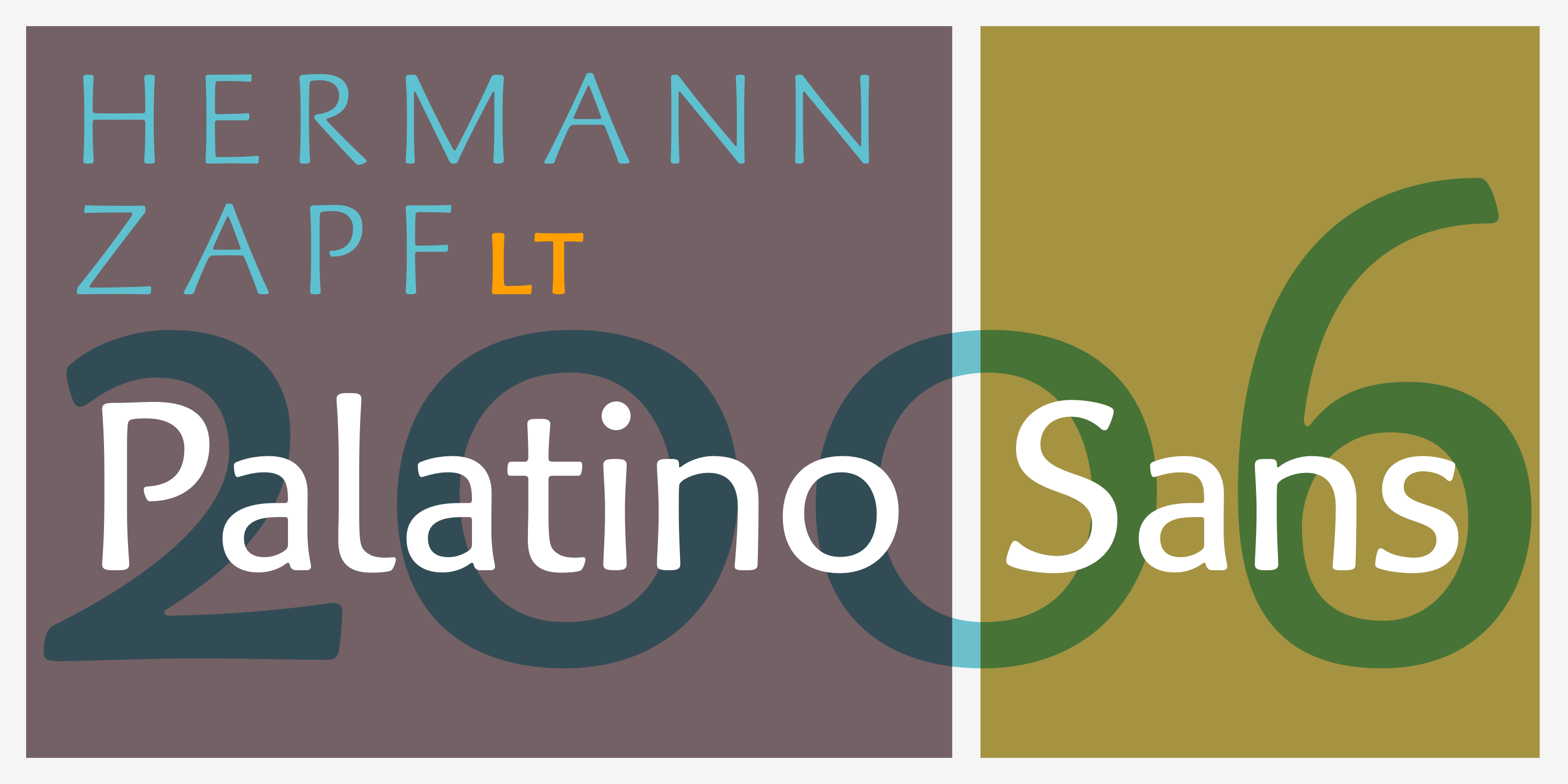
Palatino Sans Font excels in various design applications including corporate branding, editorial design, website headers, magazine layouts, business presentations, book covers, advertising campaigns, and professional documentation. This versatile typeface adapts seamlessly to both digital and print media, making it an ideal choice for designers seeking sophistication and readability.
Palatino Sans Font generates excitement among typography enthusiasts due to its perfect balance between classical elegance and modern functionality. The font's clean geometric structure combined with subtle humanist touches creates a distinctive character that stands out in crowded design landscapes. Its exceptional legibility at various sizes makes it particularly appealing for both headline and body text applications, while its professional appearance elevates any design project.
The Palatino Sans Font family encompasses multiple weights and styles including Regular, Bold, Light, Medium, Semi-Bold, and Italic variations. Each family member maintains consistent design principles while offering unique personality traits. The Light weight provides delicate elegance for sophisticated layouts, while the Bold version delivers strong visual impact for headlines and emphasis. The Medium weight strikes an optimal balance for body text, ensuring comfortable reading experiences across different media platforms.
Professional designers frequently choose Palatino Sans Font Free Download for projects requiring both aesthetic appeal and functional performance. This typeface demonstrates remarkable versatility across industries including finance, technology, healthcare, education, and creative services. Its neutral yet distinctive character allows brands to communicate professionalism without sacrificing personality.
The font's technical excellence includes comprehensive character sets supporting multiple languages, advanced OpenType features, and optimized spacing metrics. These technical specifications ensure consistent performance across various software applications and output devices. Whether used in web design, mobile applications, or traditional print materials, Palatino Sans Font maintains its visual integrity and readability.
Contemporary design trends favor clean, minimalist aesthetics where Palatino Sans Font truly shines. Its geometric foundation provides the clarity demanded by modern interfaces while retaining enough character to avoid sterile appearance. This balance makes it particularly suitable for startups, tech companies, and forward-thinking organizations seeking to establish credible brand identities.
Typography experts praise Palatino Sans Font for its exceptional spacing characteristics and letter-form consistency. The careful attention to kerning pairs and optical adjustments ensures smooth text flow in both short headlines and extended reading materials. These qualities contribute to reduced eye strain and improved comprehension rates, making it an excellent choice for educational materials and professional documentation.
The growing popularity of Palatino Sans Font reflects the design community's appreciation for typefaces that combine classical typography principles with contemporary sensibilities, creating timeless yet relevant visual communication tools.